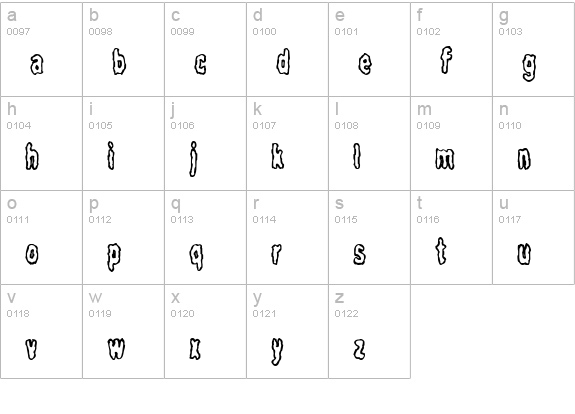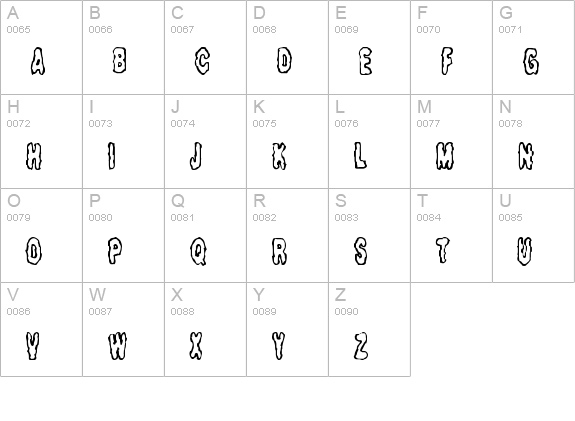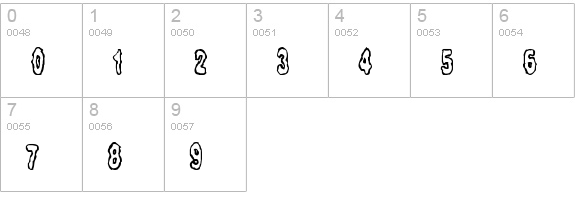
Fidgety BRK Font Details
Fidgety BRK font is a playful and quirky typeface that exudes a sense of fun and energy. With its irregular and wobbly letterforms, this font adds a unique touch to any design project. Whether you're looking to create eye-catching headlines or add a whimsical element to your branding, Fidgety BRK is sure to make a statement. The best part? Fidgety BRK font is available for free download at FontsMarket.com. This means you can easily access this charming font and incorporate it into your creative work without any cost. Don't miss out on the opportunity to add a touch of playfulness to your designs with Fidgety BRK font - download it now and let your creativity soar!